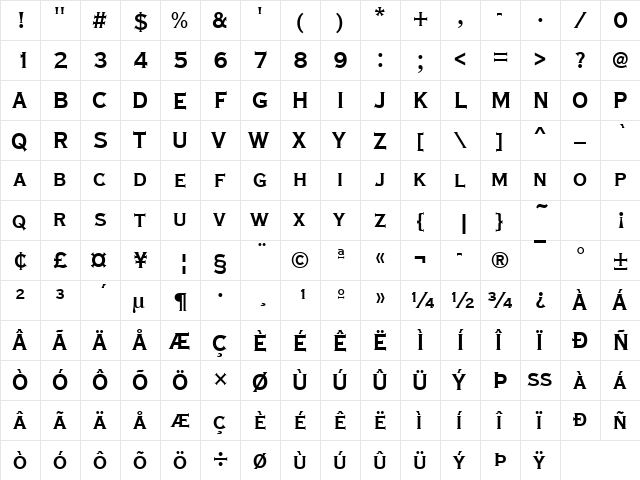
Copperplate Becker Bold Cond Regular Font Preview
Design Context for Copperplate Becker Bold Cond Typeface
Copperplate Becker Bold Cond takes a measured approach to typography — its balanced proportions and neutral character make it a reliable workhorse for both digital and print work. Its bold stroke weight gives it real presence on the page. The condensed width makes it efficient for tight spaces without sacrificing legibility.